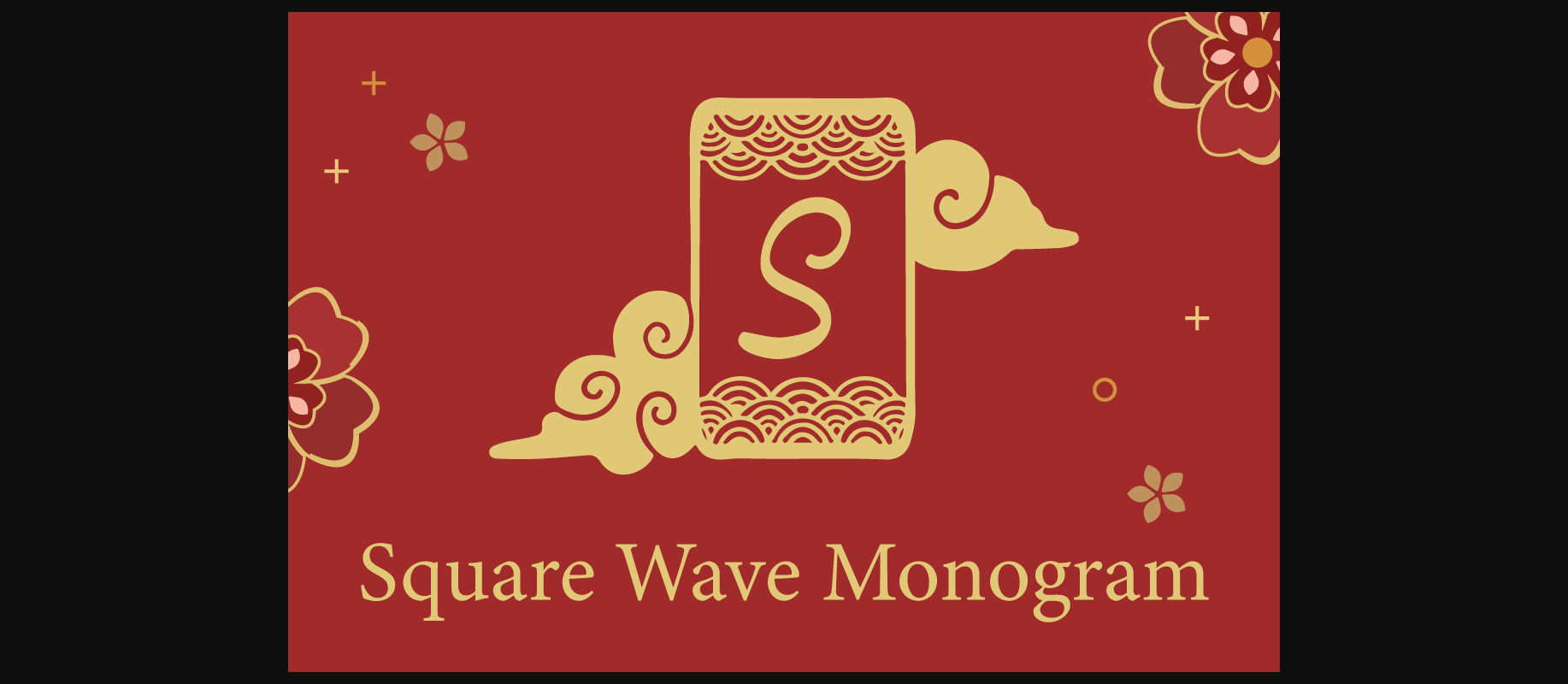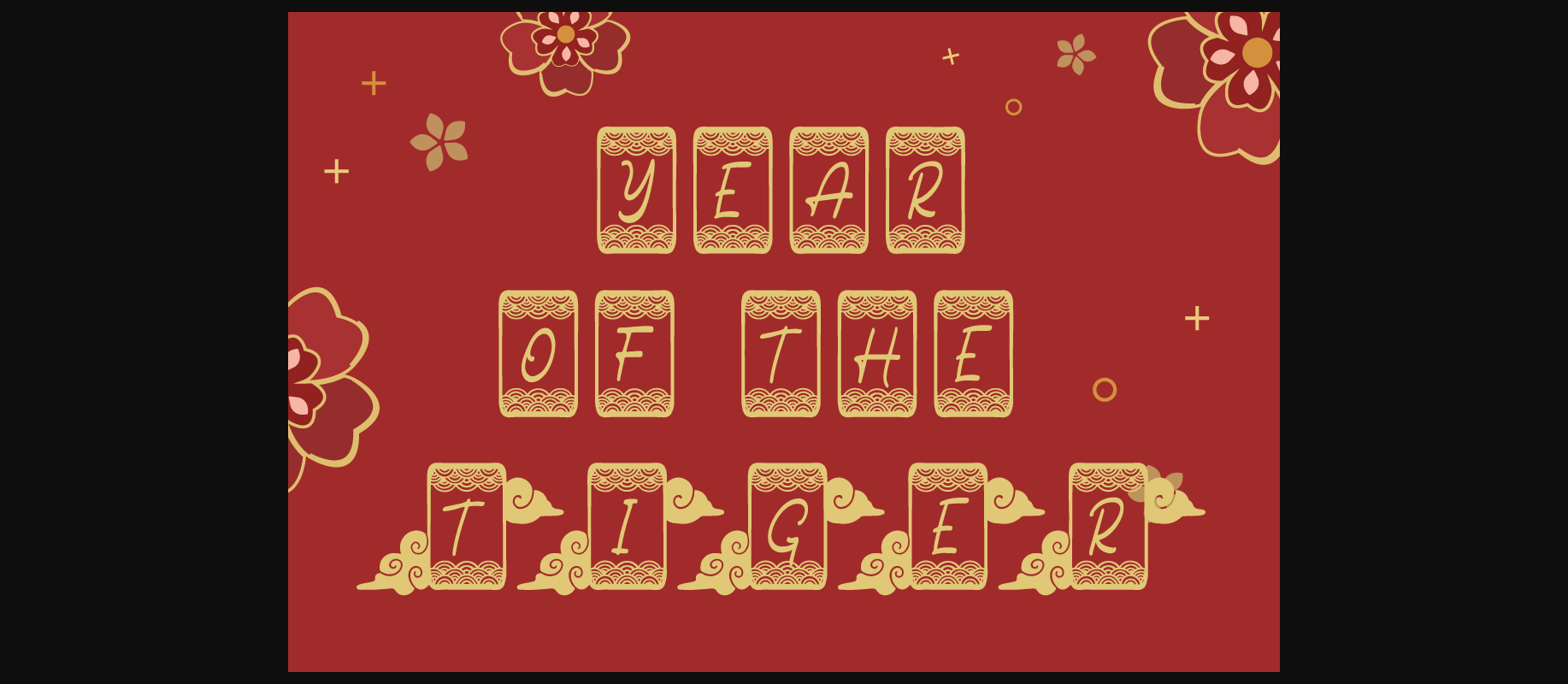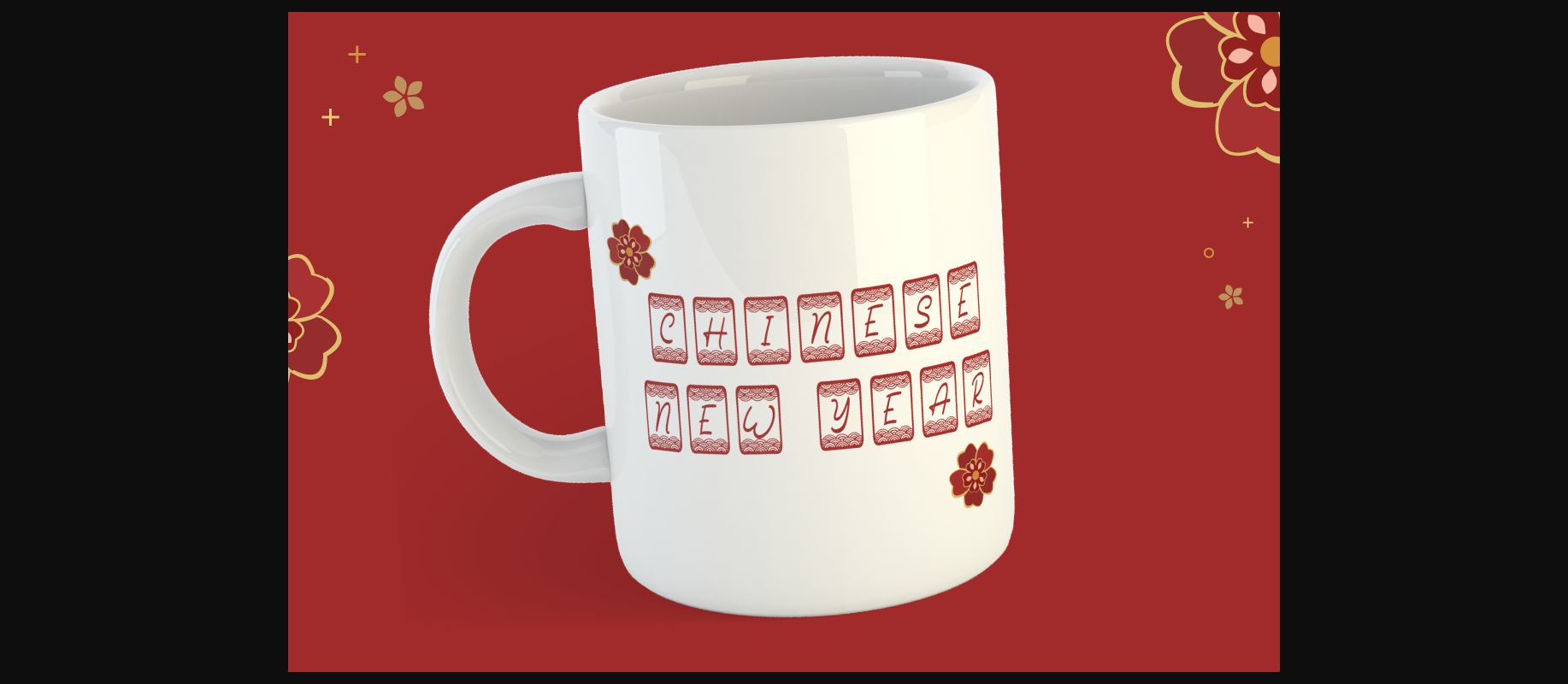
About Square Wave Monogram Font
Square Wave Monogram is an incredibly unique and highly detailed decorative font. Add it to your fonts’ library and notice how it enhances each of your creations.